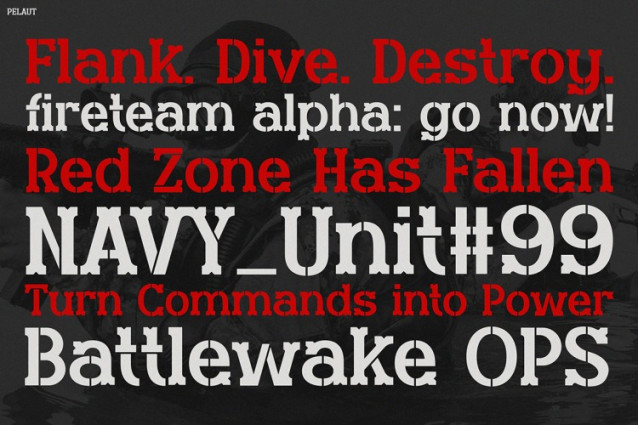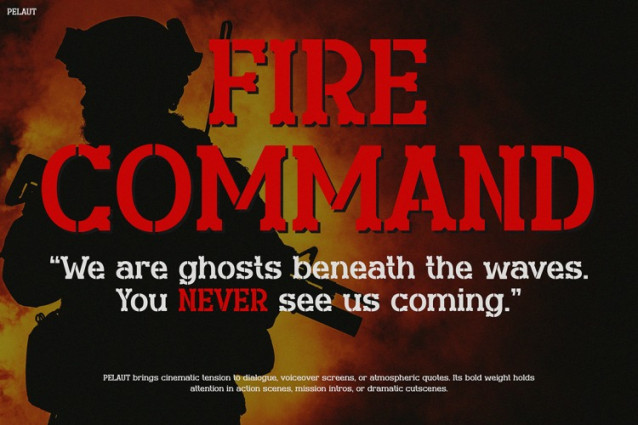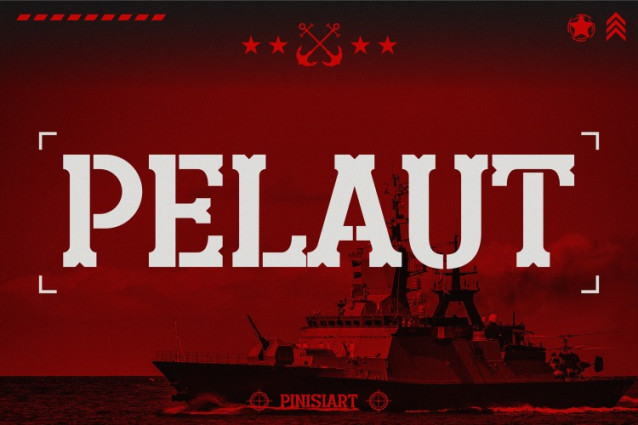
Pelaut Font
PELAUT Font: instantly grabs attention with its commanding presence, making it perfect for high-intensity gaming environments. This bold and rugged typeface combines geometric precision with a military aesthetic, delivering a powerful visual punch that elevates any design. The bold, industrial-style letterforms feature stencil-like cuts and bold outlines, making them ideal for war-themed games, mission briefings, and tactical user interfaces. Each letter feels designed to command, bringing both style and readability to high-stakes visual storytelling. Whether you’re launching a naval combat game like SEA WARZONE 7 or creating a covert mission experience in SILENT STRIKE, PELAUT amplifies the mood and immerses players in the game’s story. Not only is it beautiful, it brings cinematic weight and urgency to every screen. Use it in the main menu, mission summary, log screen, or promotional poster to instantly convey strategy, danger, and action.